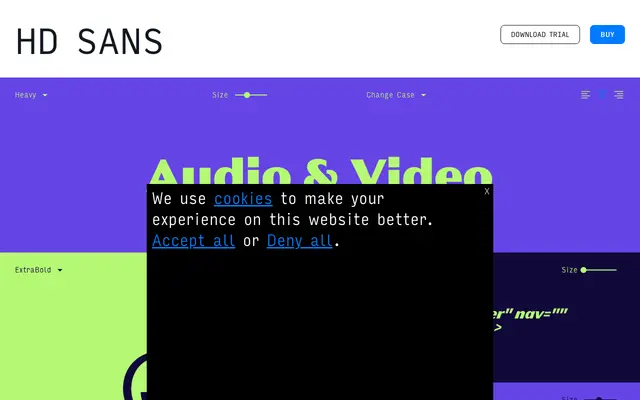
A six-weight grotesque from Bastarda with slanted counterparts to each upright, pitched at entertainment and digital branding contexts.
Twelve styles span Regular through Black with a matching slanted cut at every weight, giving designers a compact but flexible grotesque for display work. The character set covers extended Latin with a broad range of diacritics, making it usable across most Western and Central European languages. Its sample contexts — streaming platforms, TV titles and short-form editorial — suggest a face built for bold, screen-led identities rather than extended text.
A contemporary grotesque sans with no visible humanist or geometric influence; upright and slanted styles across a wide weight range suggest a workhorse display grotesque.